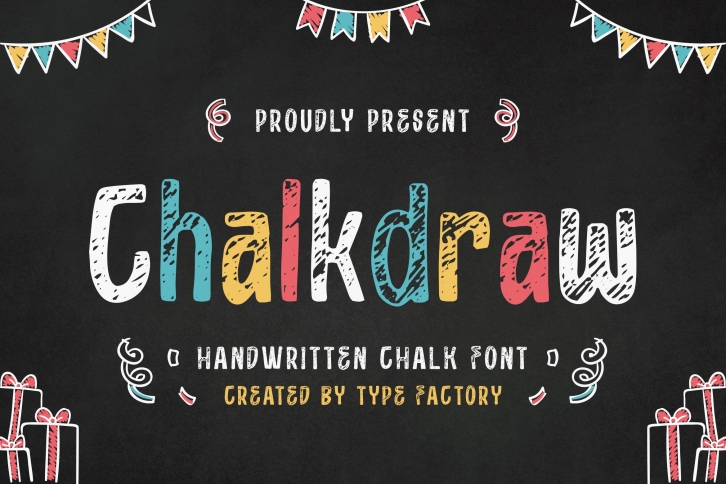
Chalkdraw is a gorgeous font that was realeased on March 2, 2022. The font can be used in many style contexts and design environments. Perfect for invitations, magazines, websites, logos, and more! It was designed by Typefactory and the file size is 1.10 MB. Thanks for checking out this font!